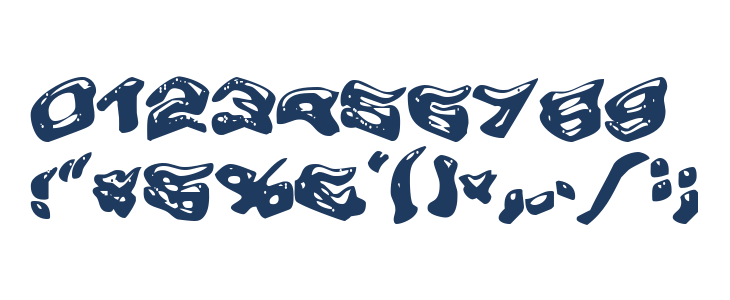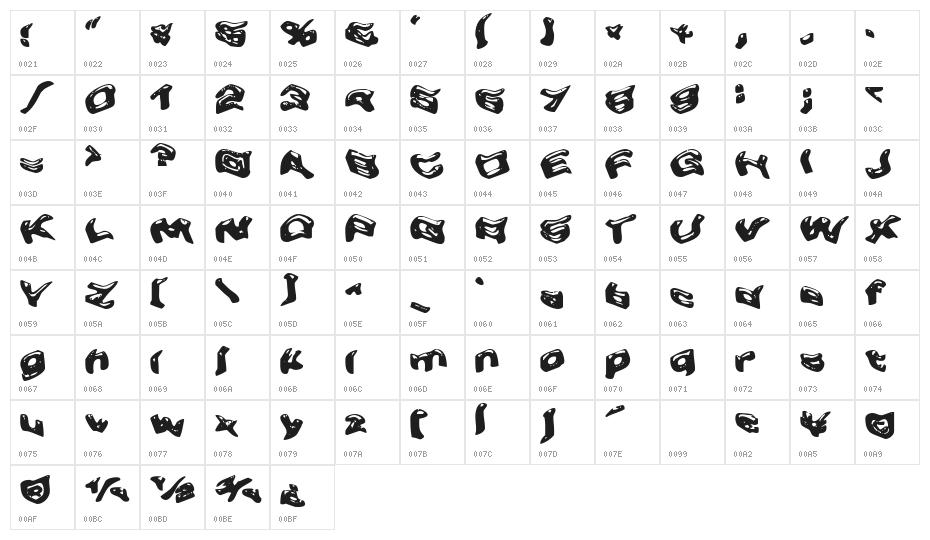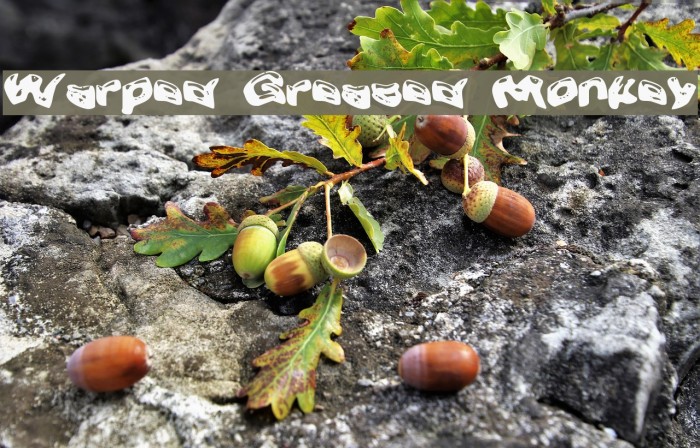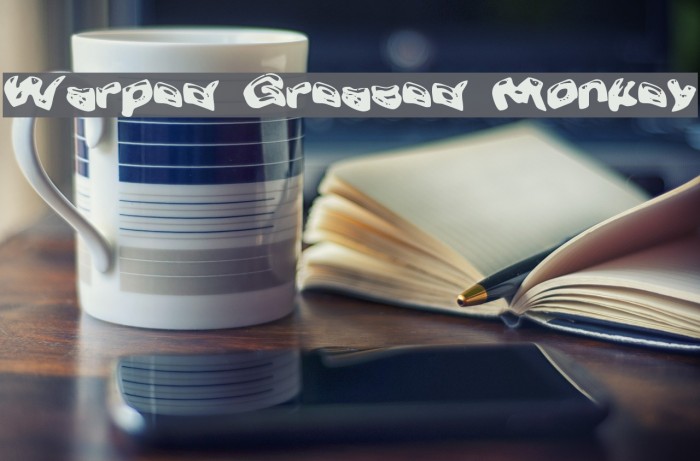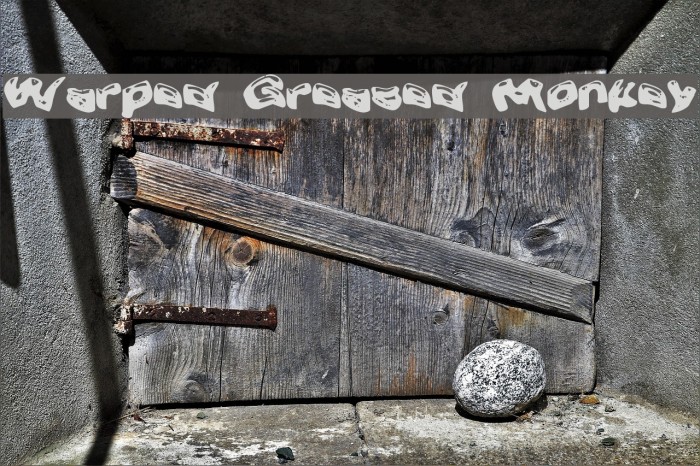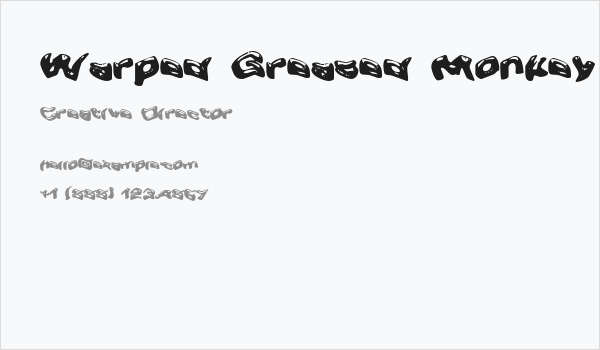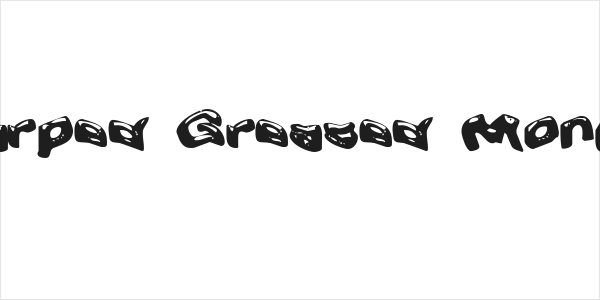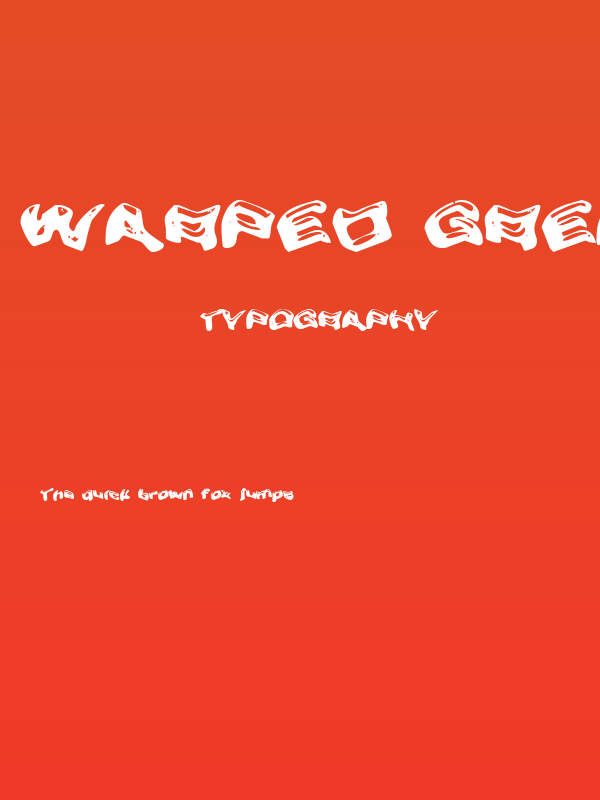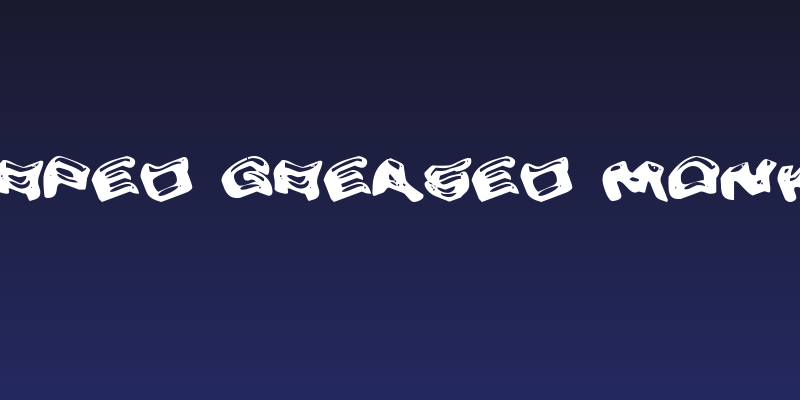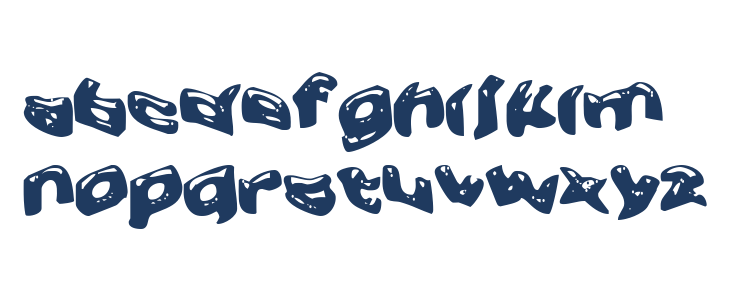
Warped Greased Monkey Font
Warped Greased Monkey Description
This font features a highly stylized and distorted appearance, reminiscent of graffiti or street art. The characters are bold and irregular, with a playful, almost chaotic energy. Each letter and number is uniquely warped, giving the font a dynamic and unconventional look. The strokes are thick and uneven, creating a sense of movement and spontaneity. This font is ideal for projects that require a bold and eye-catching design, such as posters, album covers, or urban-themed graphics. Its distinctive style makes it stand out, ensuring that any text set in this font will capture attention.
| Proposed Projects | Perfect for street art designs, edgy posters, album covers, and urban-themed graphics. |